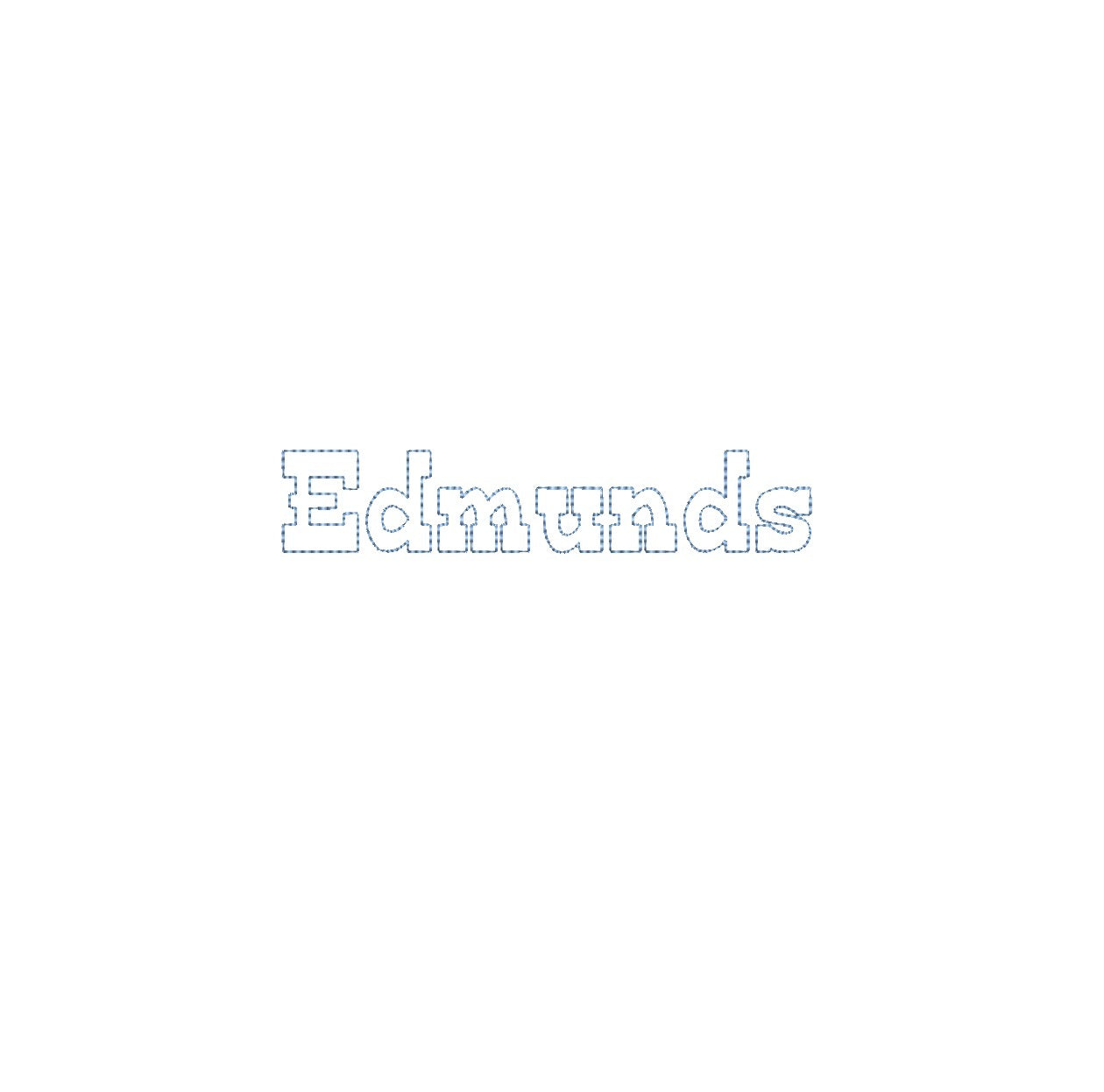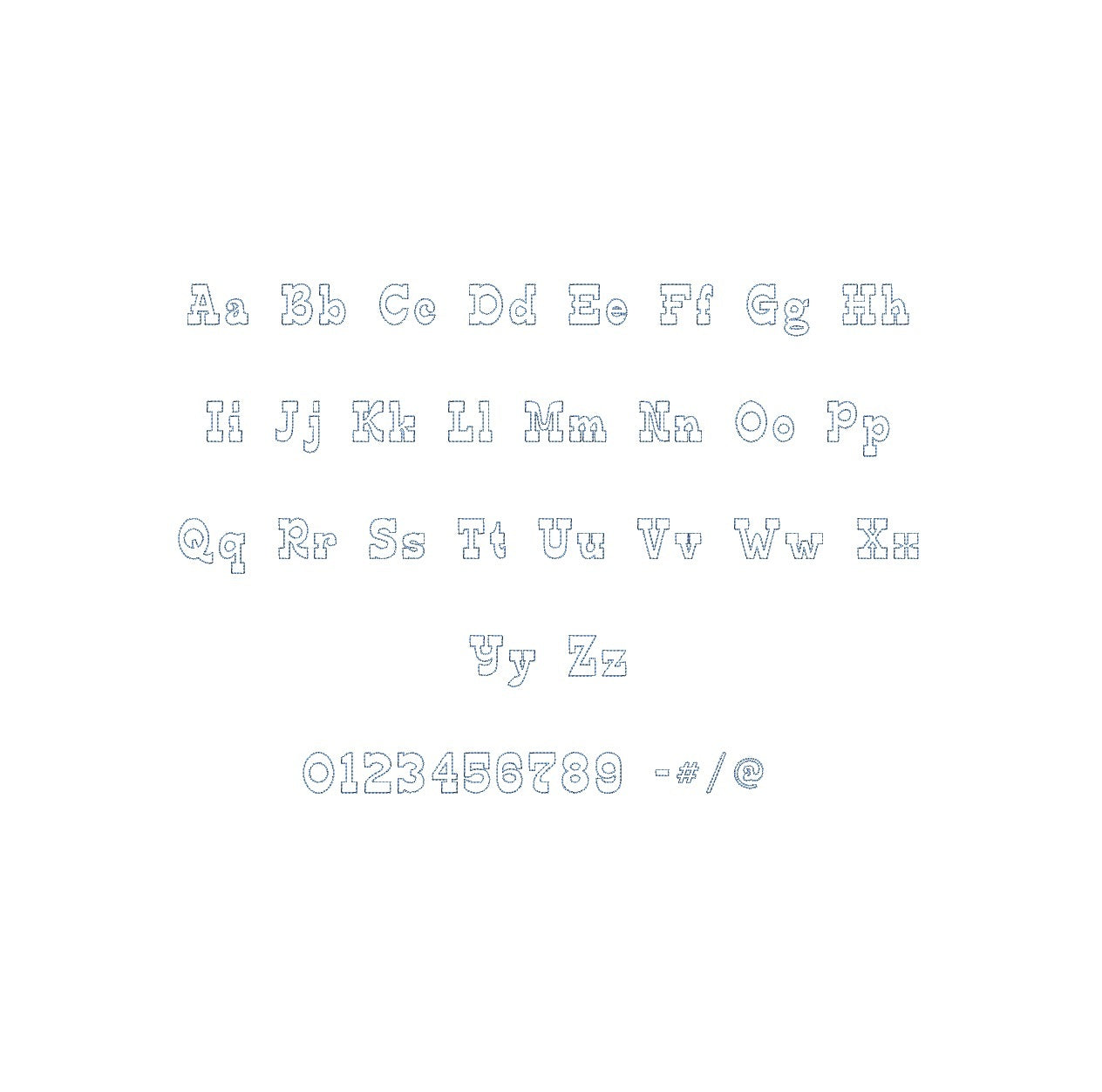
Elevate your embroidery with the Edmunds Bean Stitch Outline ESA font. Designed for seamless compatibility with Wilcom Studio e4.5.6 and Hatch 3 versions and beyond, this font brings a touch of sophistication and creativity to your designs. Its meticulously crafted bean outline style adds depth and uniqueness, making it perfect for monograms, labels, and decorative elements. Experience enhanced embroidery projects through seamless integration and precise stitching. Discover endless creative opportunities in Wilcom Studio and Hatch software with the Edmunds Bean Stitch Outline ESA font. Elevate your designs and make a lasting impression today.